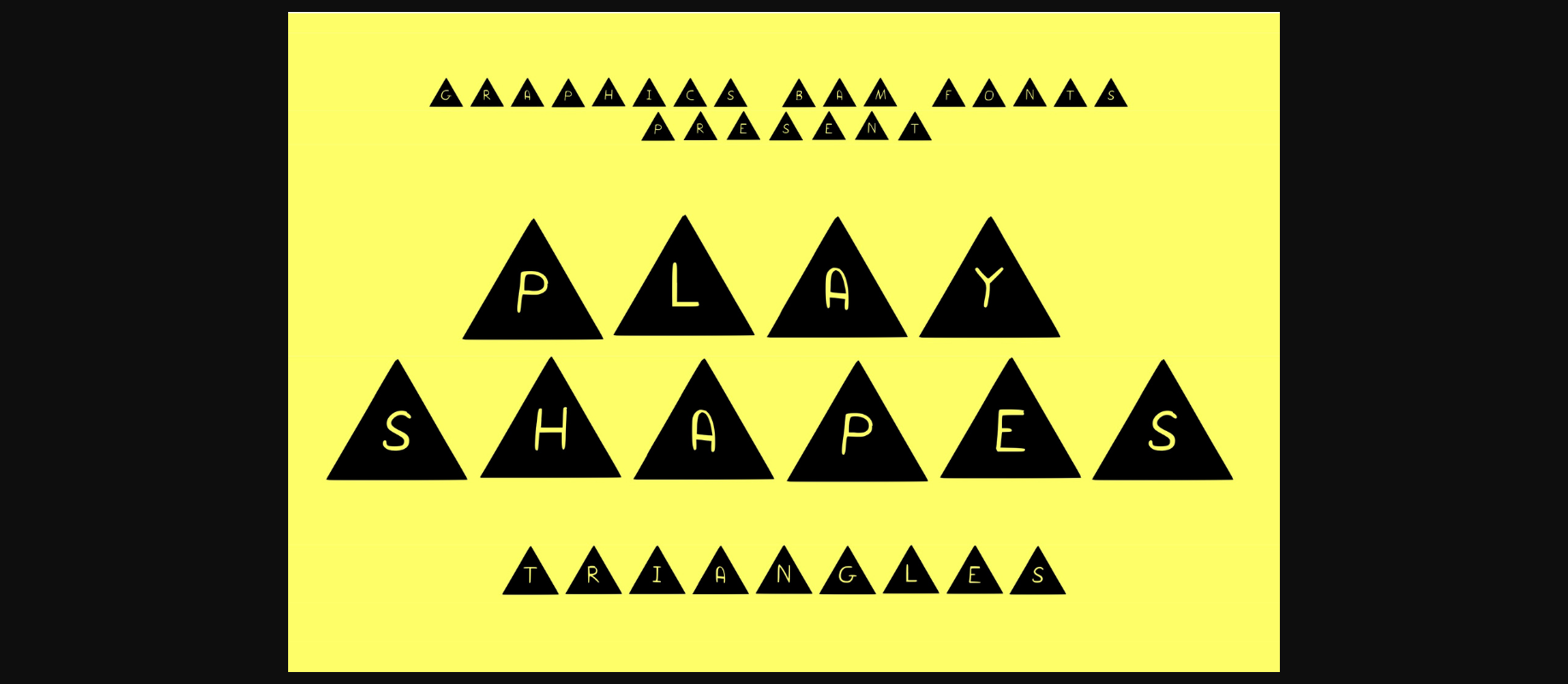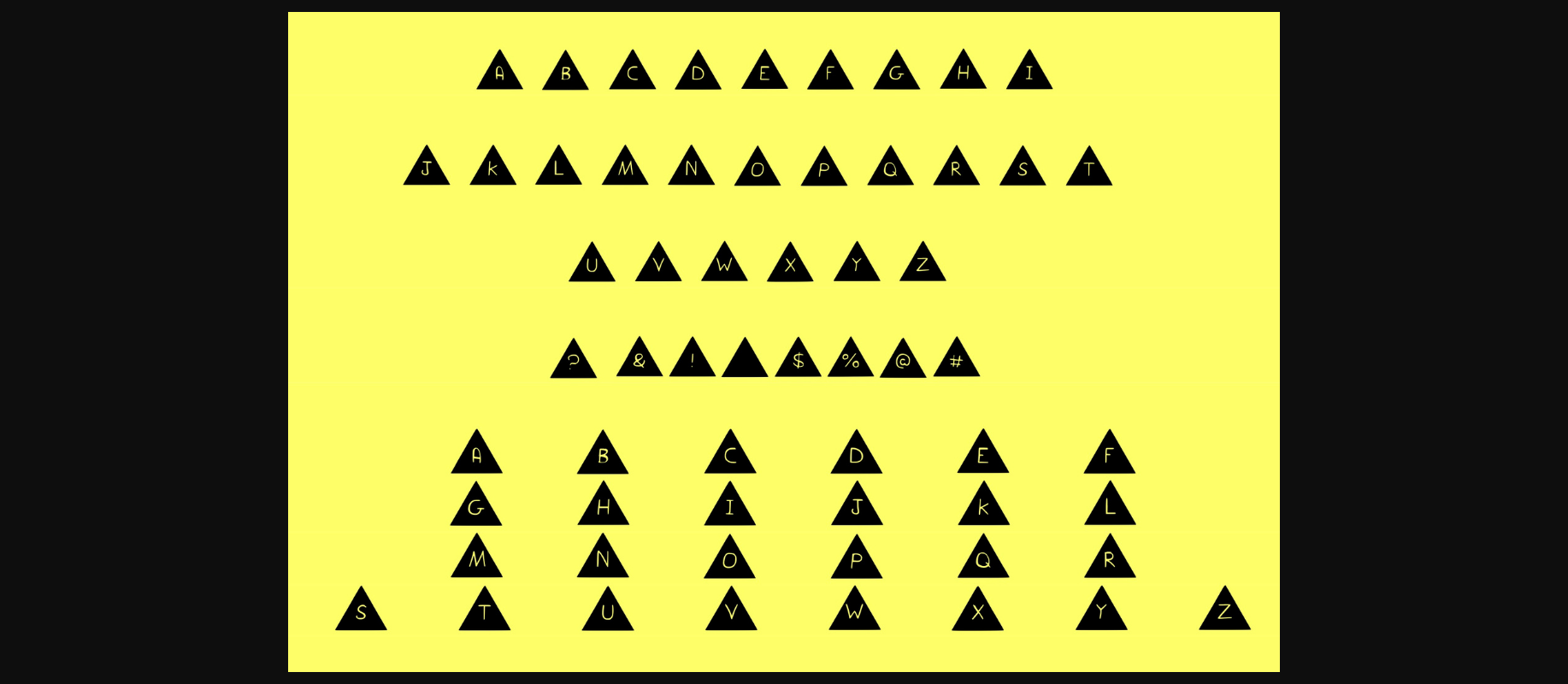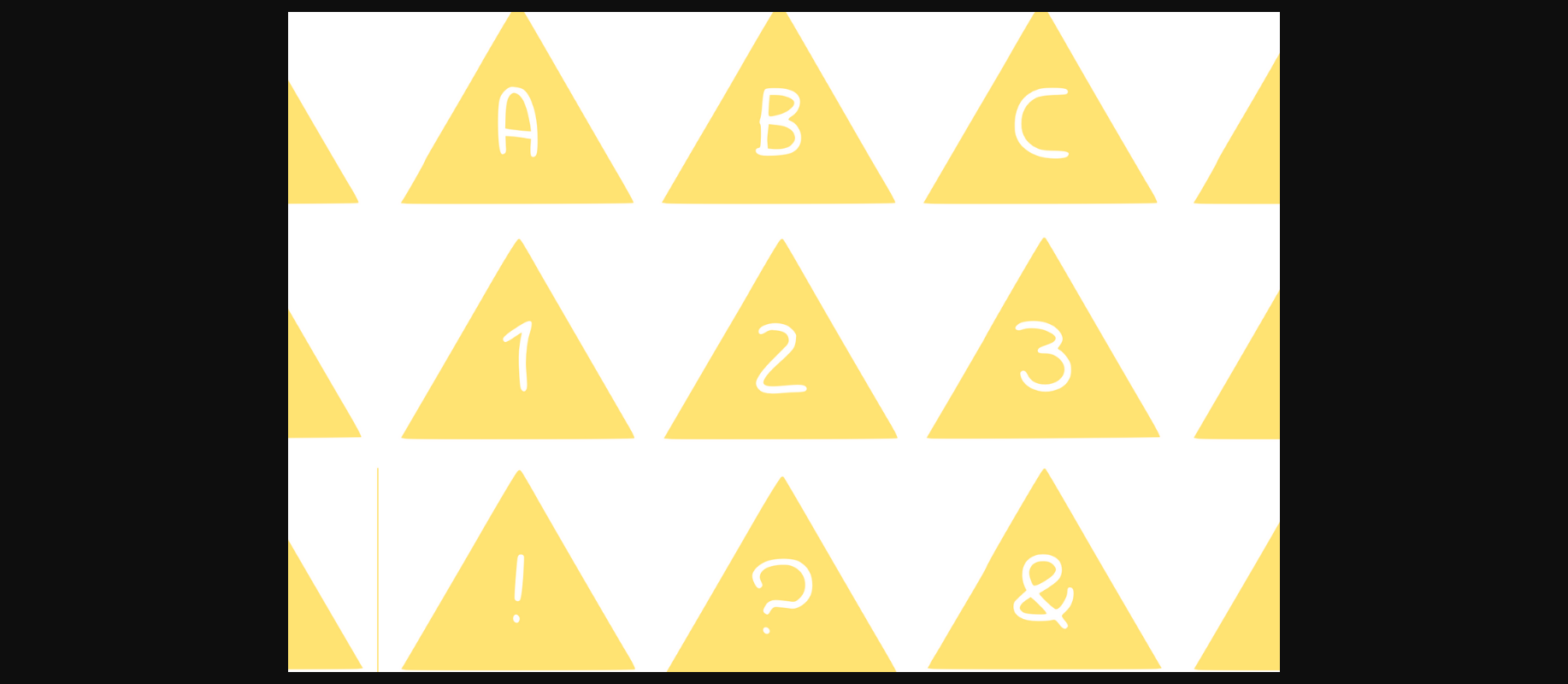
Play Shapes Triangles Font
About Play Shapes Triangles Font
Play Shapes Triangles is a cute, fun and useful decorative font. It will work incredibly well on teaching materials, game designs or pretty much any creation that requires a youthful touch.